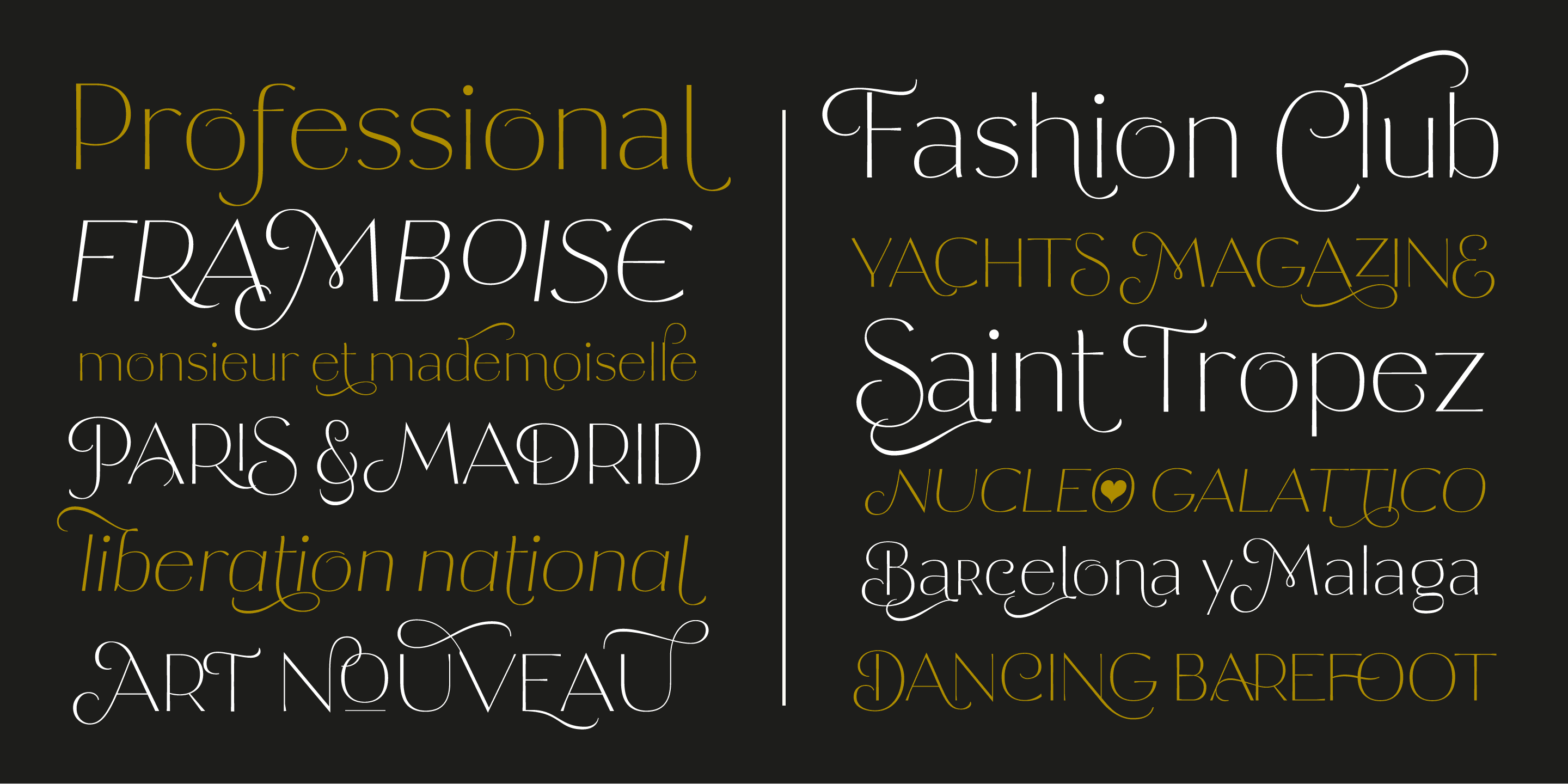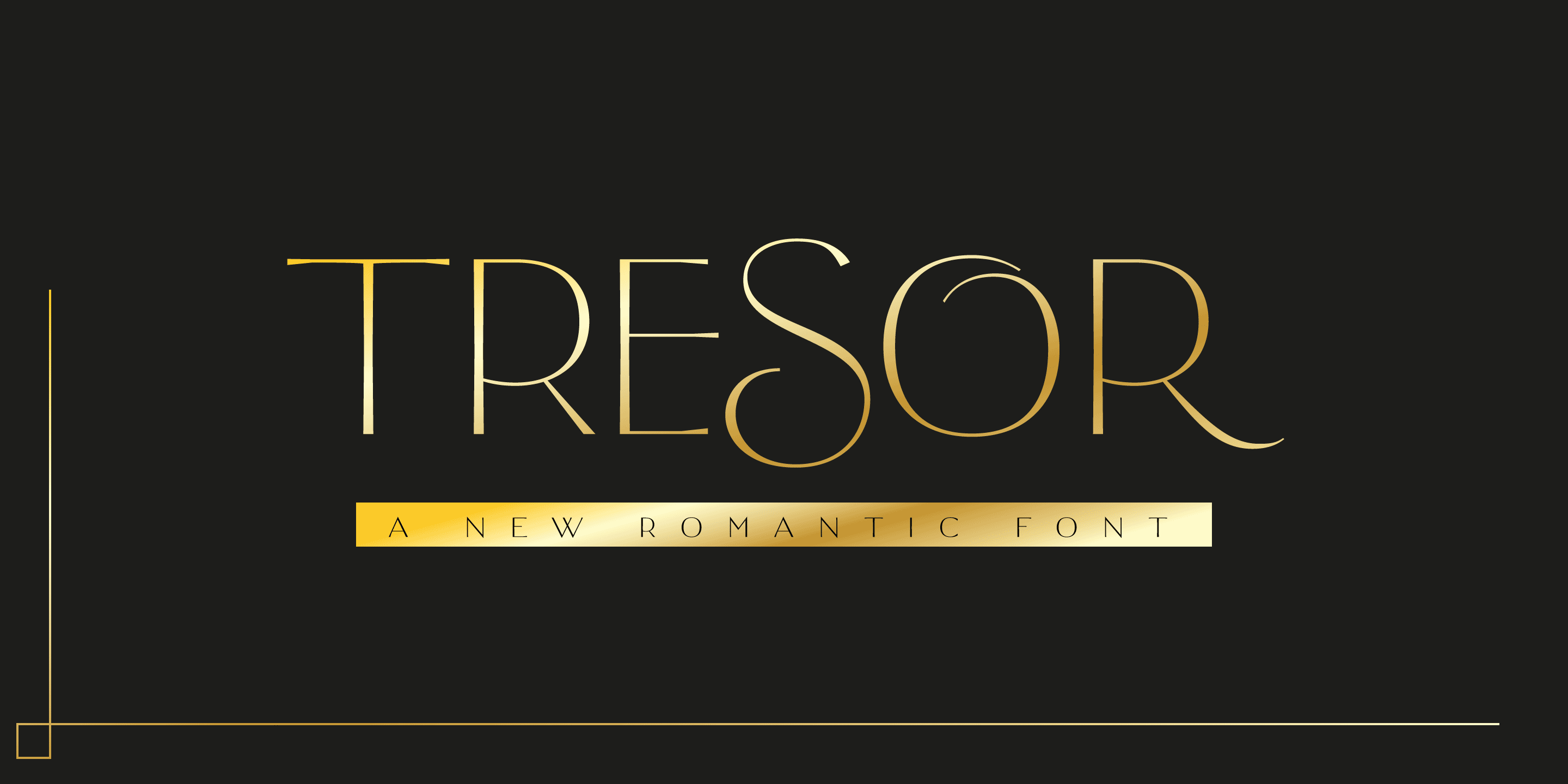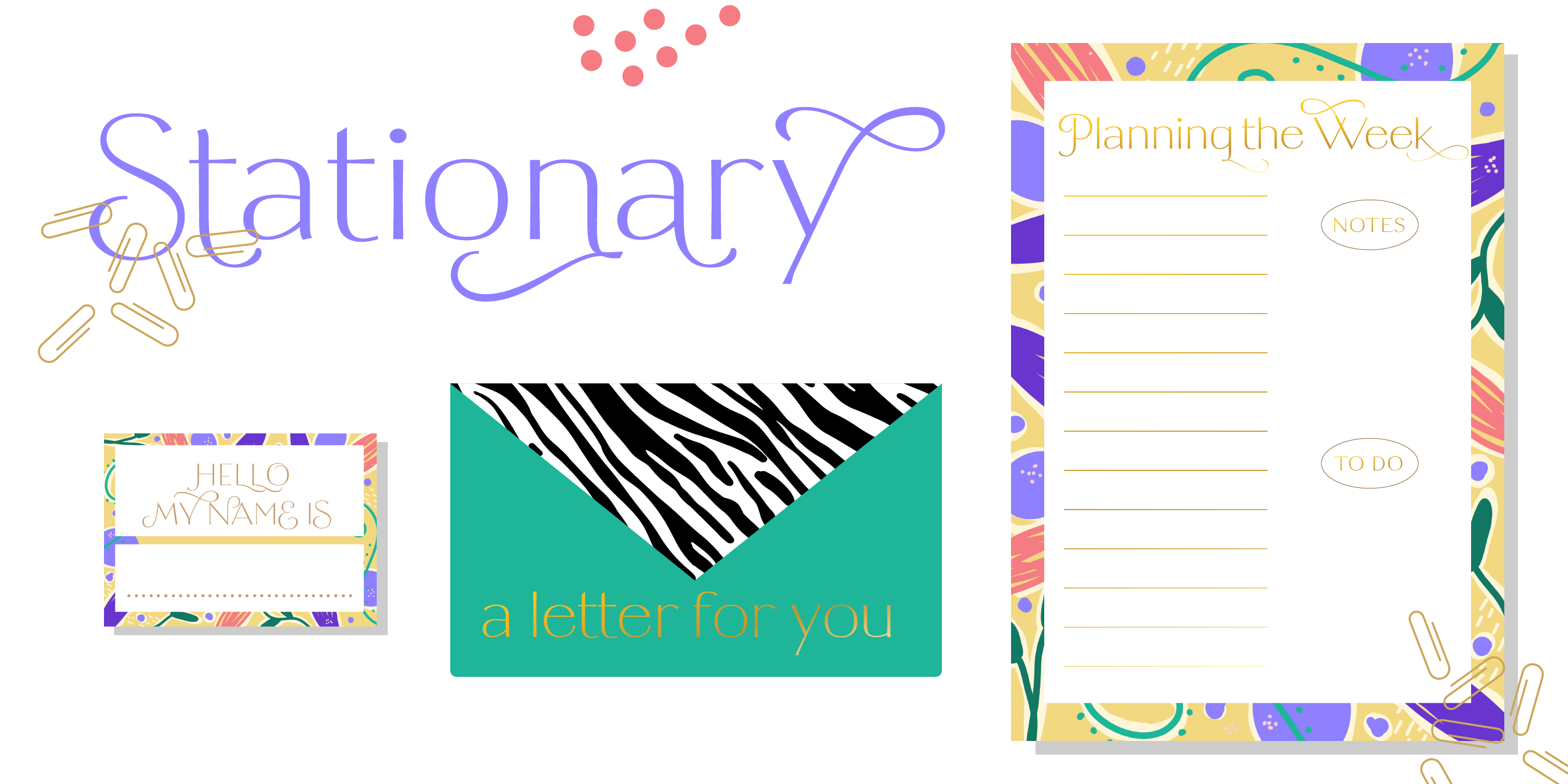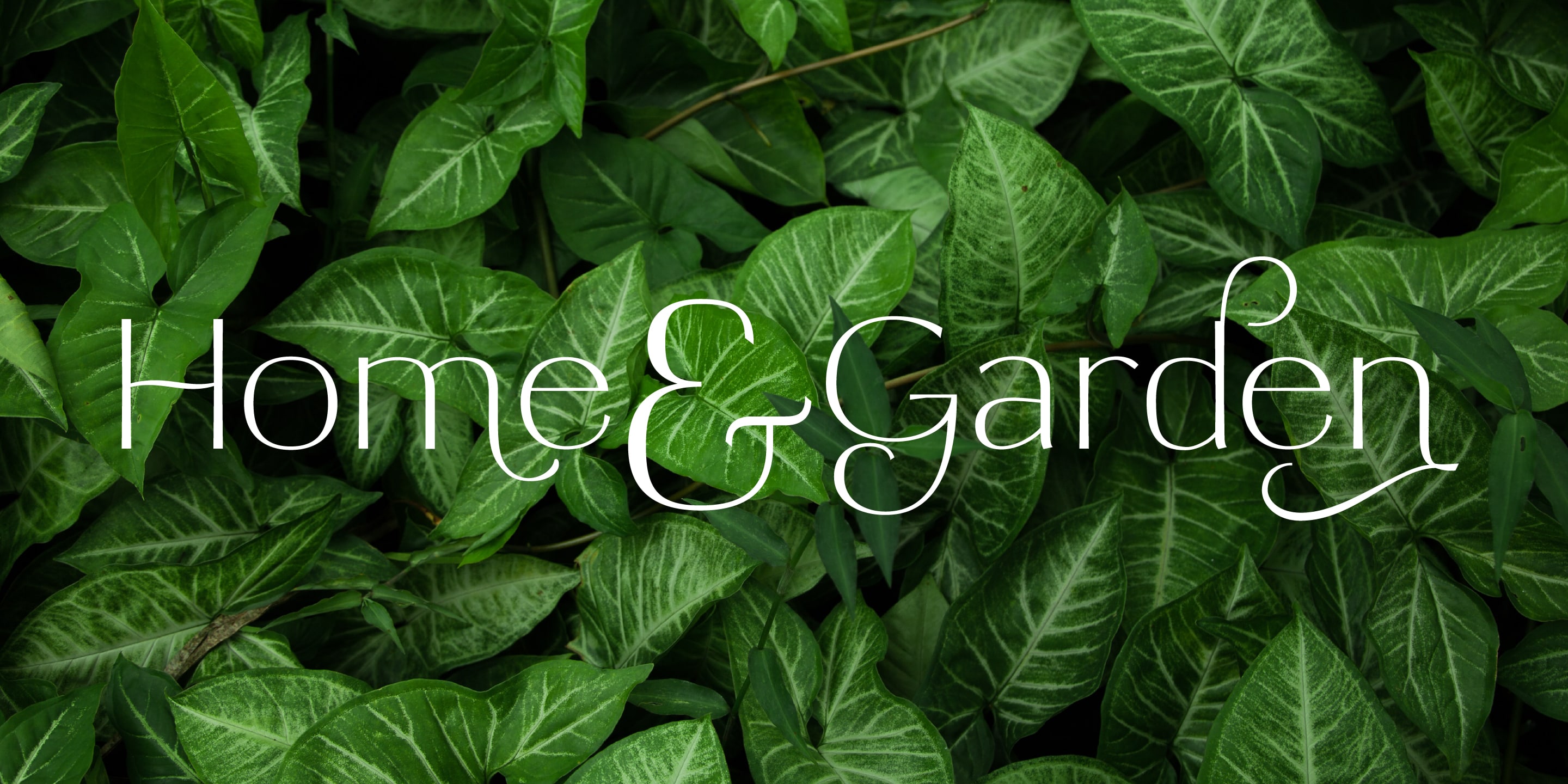
Tresor
Stylish & Modern font family
Tresor
Designed by Resistenza Type FoundryTresor is a new Sans Serif font family with contrast and lo-fi nostalgia inspiration. It has a classic look and a romantic twist thanks to its extended set of decorative alternates and ligatures.
Tresor (meaning “treasure” in French), is full of jewels including a beautiful collection of swashes. More than 1000 glyphs accessible through OpenType features invite you to customise your test.
This stylish & modern font family includes 2 different styles and 3 different weights. The thinnest weight is Tresor 100, with Tresor 200 and 400 you get an extra thickness, heavier weights that are perfect for small sizes.
Tresor works beautifully for headlines, weddings invitations, instagram posts, packaging design, stationery and logos.